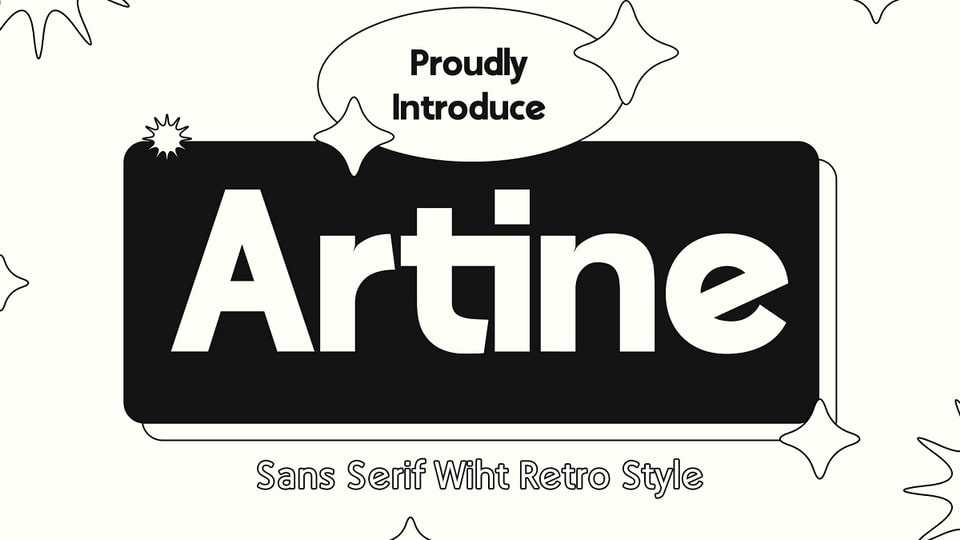
Download Artine font, a versatile sans serif typeface inspired by classic retro aesthetics. Artine delivers the perfect blend of nostalgia and contemporary style.
Designer: Mytype Studio